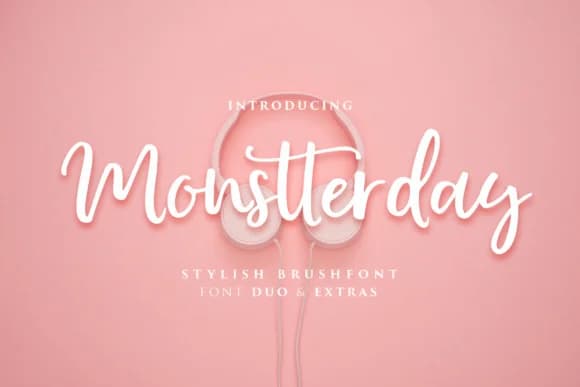
Monstterday Script Font by fargunstudio is an elegant, flowing copperplate script with a dynamic baseline that brings timeless sophistication and charm to design work across multiple mediums and creative contexts. The carefully crafted letterforms feature a graceful, hand-drawn quality that feels personal yet refined, striking an ideal balance between artistic expression and professional polish that works beautifully across both traditional and contemporary design applications. This versatile script font excels when refinement and elegance matter most to your creative vision. Wedding save-the-date cards, invitation suites, and coordinated stationery packages gain authentic personality through this font's natural rhythm and flowing movement. Luxury skincare and cosmetics packaging takes on new sophistication through its refined, delicate letterforms and strokes. High-end greeting card collections, fine art event programs, and special occasion announcements benefit directly from its genuine hand-lettered authenticity. The font performs beautifully for creating custom monograms, intricate logo embellishments, and personalized signature treatments in branding work. Multiple variations, Regular, Alt, Caps, and Elements, give you flexibility to layer letterforms and decorative elements for richer visual compositions and unique design solutions. Bring Monstterday Script Font into your Creative Fabrica collection today and discover all the elegant possibilities it unlocks for your most refined and sophisticated creative projects.
- Elegant, Flowing, Monstterday Regular
Monstterday Script Font is a script font that shines as a display or heading face. Pair it with a clean sans-serif or serif font for body text β the contrast creates a clear hierarchy while the two styles stay balanced and easy to read.
Monstterday Script Font